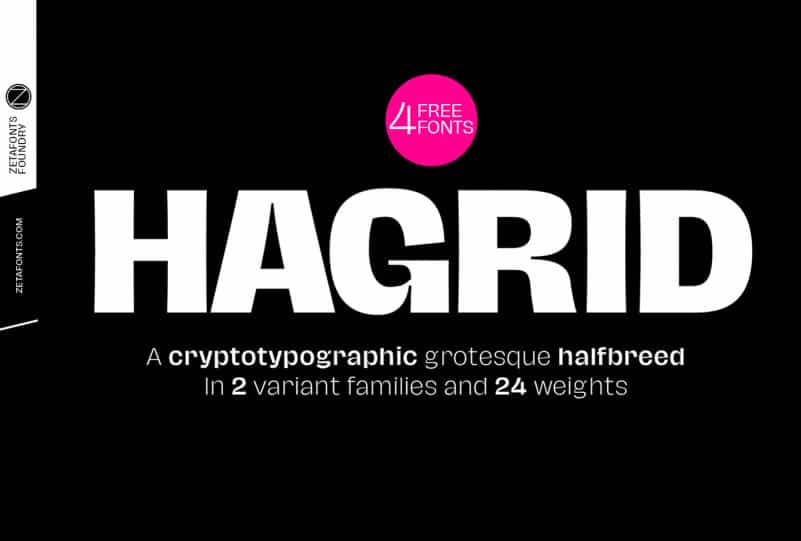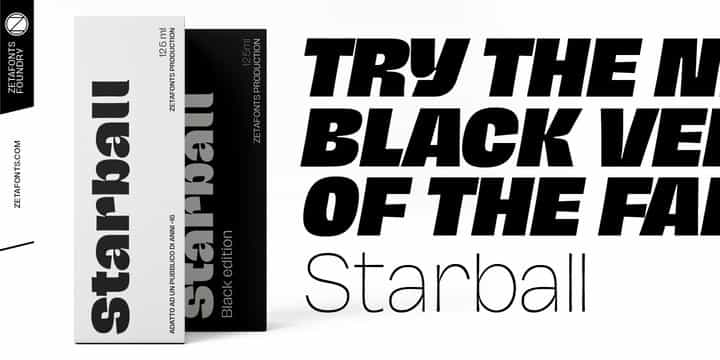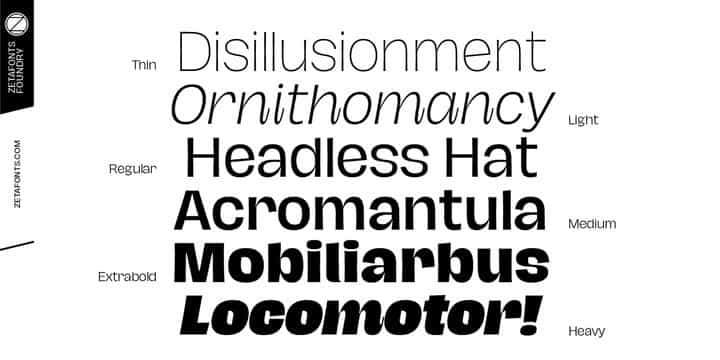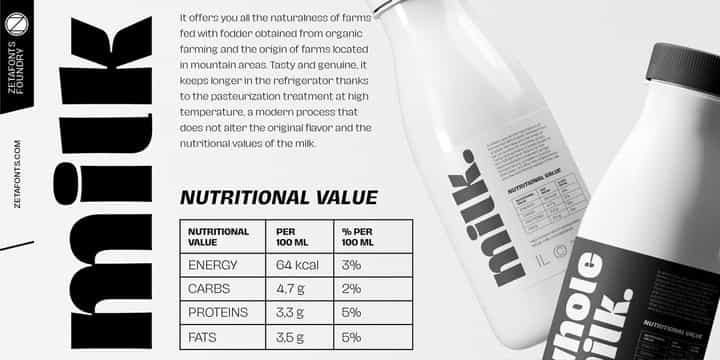
Here is a collection of the Hagrid Sans Serif Family. The font is designed and published by Cosimo Pancini for Zetafonts. Hagrid is an original typeface for the editorial and display purpose, providing the contemporary page, printed and digital, with energy due to its contrast and peculiarities. It has been created in a palette of six display weights from the more unconventional thin to the opulent heavy weight.